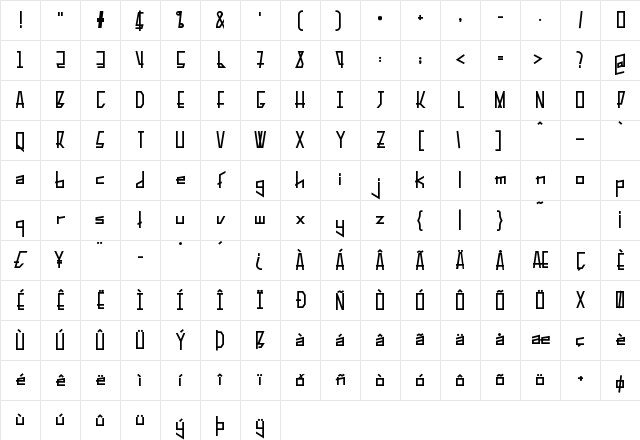
Complete PelanquierBlack Regular glyph index. Displaying only characters natively supported by PelanquierBlack Regular font.
PelanquierBlack is a composed and adaptable typeface that performs quietly and consistently across a wide range of design contexts.